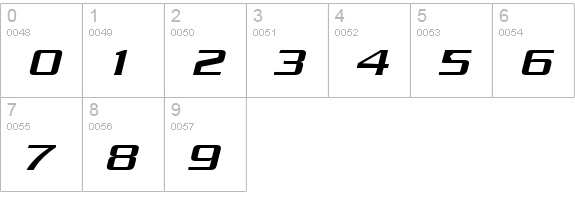
Chaney Wide Italic Font Details
Chaney Wide Italic is a distinctive, extended-width, italic variant in the Chaney typeface family \xE2\x80\x94 well suited to design and typography projects.
Chaney Wide Italic is a stunning and elegant font that exudes sophistication and style. With its wide letterforms and sleek italic design, this font is perfect for adding a touch of class to any project. The subtle curves and clean lines of Chaney Wide Italic make it ideal for both headlines and body text, ensuring that your message is conveyed with grace and elegance. What's even better is that Chaney Wide Italic is available for free download at FontsMarket.com. This means you can easily access this beautiful font and use it in your designs without any cost involved. Whether you're working on a creative project, a business presentation, or anything in between, Chaney Wide Italic is sure to elevate your work and make a lasting impression. Download it today and add a touch of sophistication to your design arsenal.